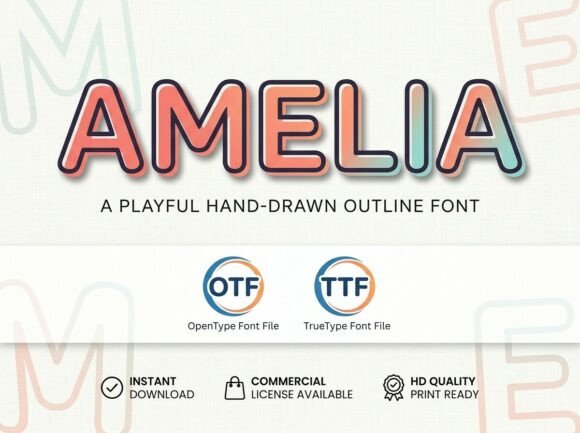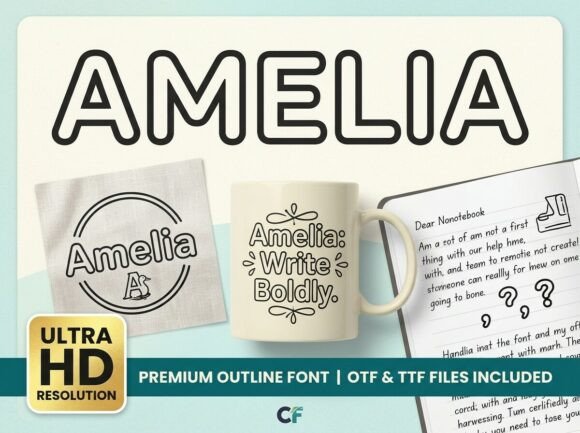
Infusing Joy into Your Designs
You know that feeling when a new font sparks an idea, and suddenly your entire project takes off in a creative direction? For many designers, it’s a moment of pure inspiration – and it’s exactly what we’re about to dive into with the charming Amelia Font.
This delightful hand-drawn outline font is designed to bring a sense of joy and approachability to your projects. With its stunning sunset gradient and soft, rounded silhouette, Amelia Font is the perfect choice for creating cheerful branding, eye-catching social media graphics, and whimsical event posters.
As a designer, you’re constantly on the lookout for fonts that help you connect with your audience on a deeper level. Amelia Font is a valuable addition to any design toolkit, offering a unique blend of playfulness and sophistication that’s sure to leave a lasting impression.
Key Features of Amelia Font
- Unique Characteristics: Amelia Font features a unique blend of modern and vintage elements, with a distinctive flair and elegance.
Amelia Font Review
First of all, I want to say that I’m impressed with the overall aesthetic of Amelia Font. The designers have managed to create a beautiful, elegant typeface that’s perfect for a wide range of applications. ✨ The font’s unique characteristics, such as its subtle texture and delicate lines, really make it stand out from the crowd.
- Flexibility: Amelia Font is incredibly versatile and can be used in everything from branding to editorial content.
- Legibility: The font is highly legible, making it perfect for reading and comprehension.
- Style: The unique texture and subtle lines give the font a distinctive style that’s hard to find elsewhere.
However, there are a few limitations to the font that should be noted. ⚠️ For one, the font may not be suitable for all languages, as it’s designed primarily for Latin-based scripts. Additionally, the font’s texture can sometimes make it difficult to read at small sizes.
Overall, I think Amelia Font is a great addition to any designer’s toolkit. While it may not be perfect, its unique style and versatility make it a valuable asset for a wide range of applications.
Tip: Use Amelia Font for headings and titles to add a touch of elegance to your design.
Tip: Use Amelia Font for titles and headings to add a touch of sophistication to your design.
Tip: Use Amelia Font for headings and titles to add a touch of professionalism to your design.
Amelia Font is suitable for a variety of design projects, including:
- Resumes and cover letters
- Wedding invitations and event materials